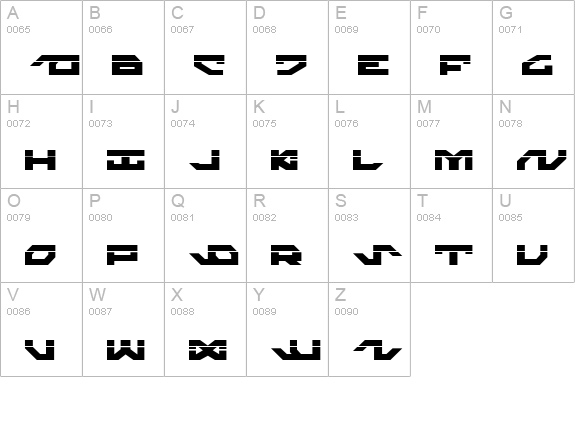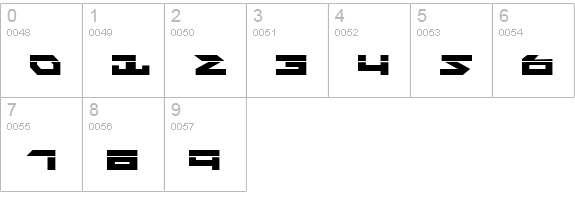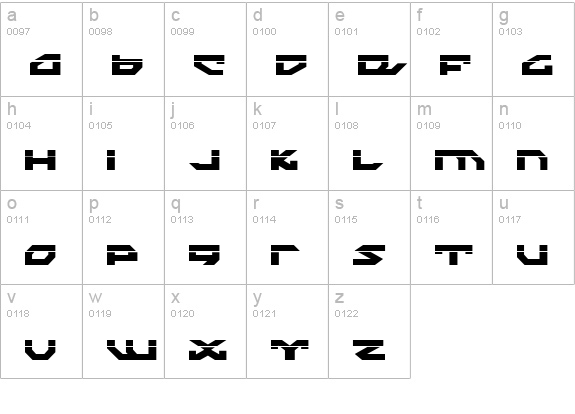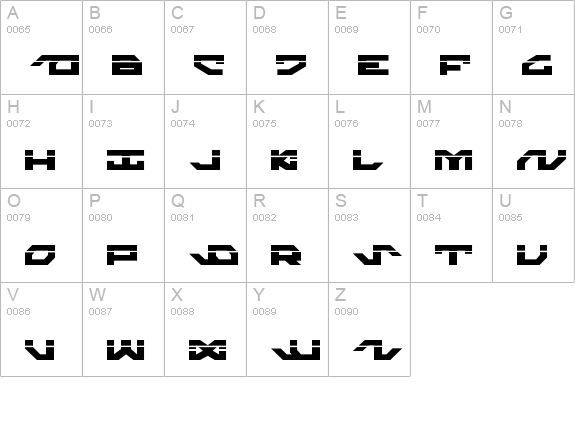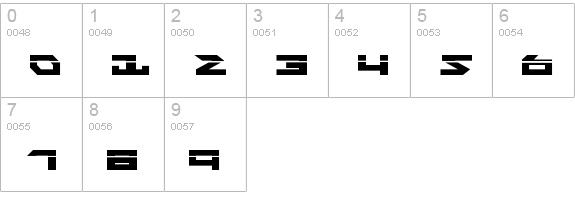
Nightrunner Laser font is a sleek and futuristic typeface that captures the essence of speed and precision. With its sharp edges and dynamic design, this font is perfect for projects that require a modern and edgy look. The laser-inspired details add a touch of sophistication, making Nightrunner Laser font a standout choice for branding, posters, and digital designs. What sets Nightrunner Laser font apart is that it is not only visually striking but also versatile and easy to read. Its bold and distinctive characters make a bold statement while maintaining readability. Whether you're creating a high-tech logo or designing a cutting-edge website, Nightrunner Laser font will help your text stand out and make a lasting impression. Best of all, Nightrunner Laser font is free to download at FontsMarket.com. This means you can add this unique and eye-catching font to your collection without any cost. Don't miss out on the opportunity to enhance your designs with the striking and modern aesthetic of Nightrunner Laser font. Download it today and let your creativity shine!